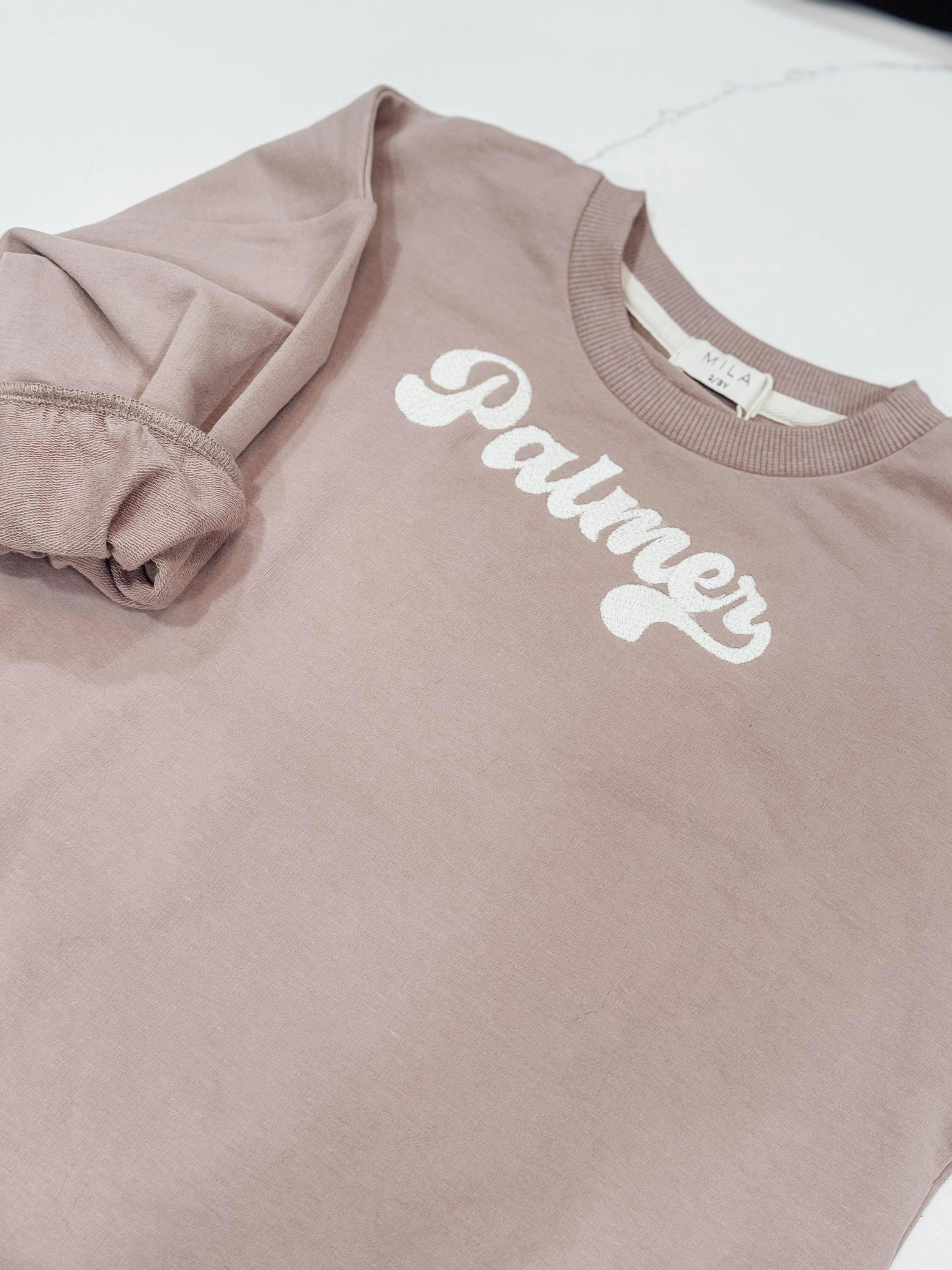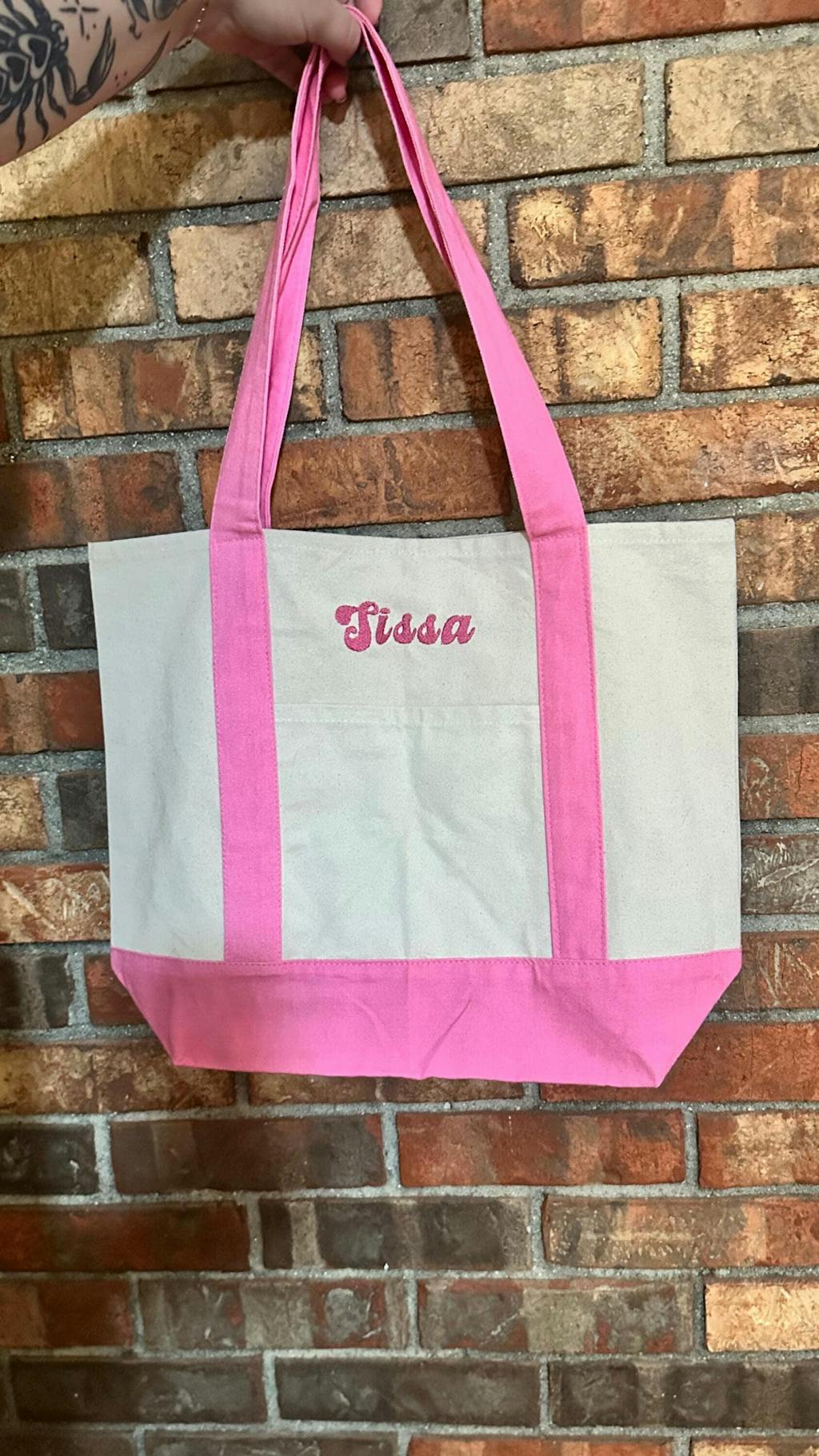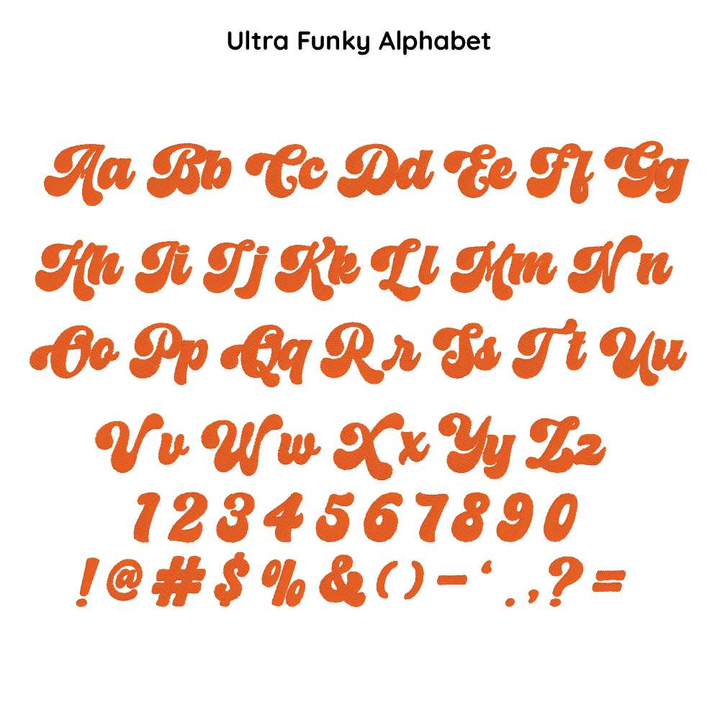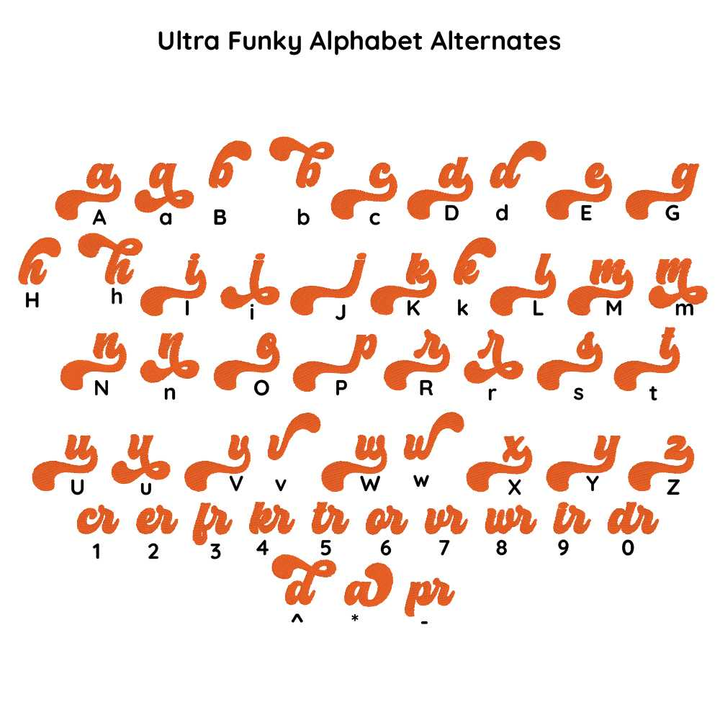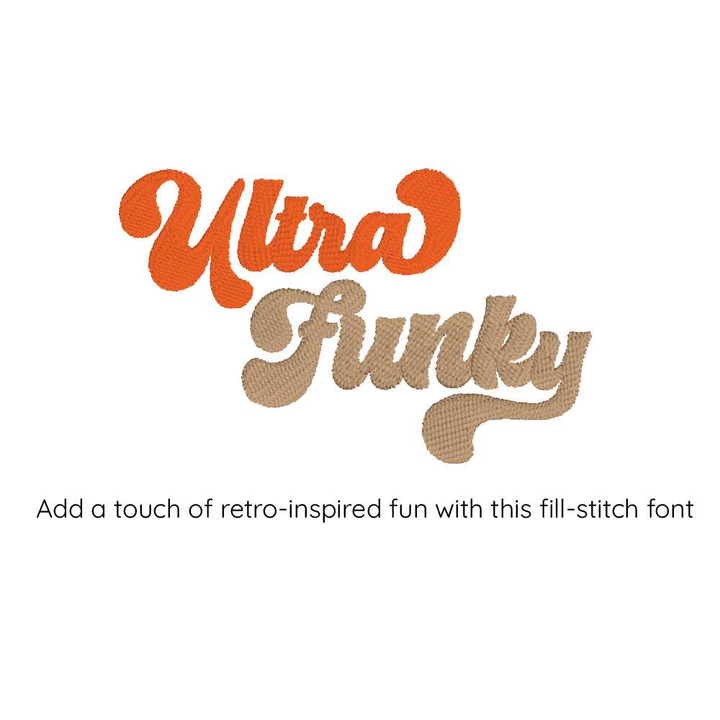
Photograph of Ultra Funky embroidery font
Photograph of Ultra Funky embroidery font alphabet
Photograph of Ultra Funky  embroidery font alternate alphabet
Ultra Funky Digital Embroidery Font
Looking for a font that channels the funky, retro vibe of the 70s? Look no further than Ultra Funky, the machine embroidery font that adds a touch of vintage cool to any design. Featuring a bold, playful style with chunky letters and exaggerated serifs, Ultra Funky is perfect for creating statement pieces with a bit of groovy flair. Whether you're embroidering retro-inspired fashion accessories or funky home decor, Ultra Funky is a fun and unique font that adds personality to any project.
Stitch Type: Fill Stitch